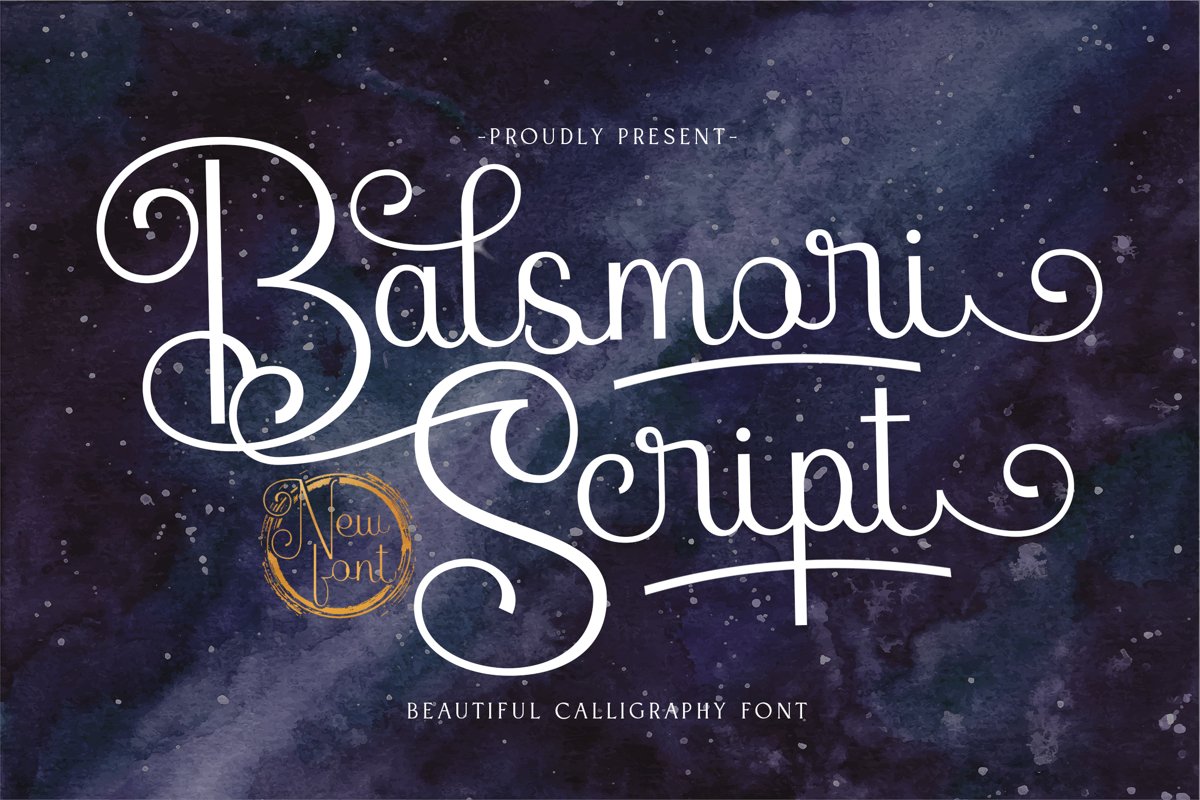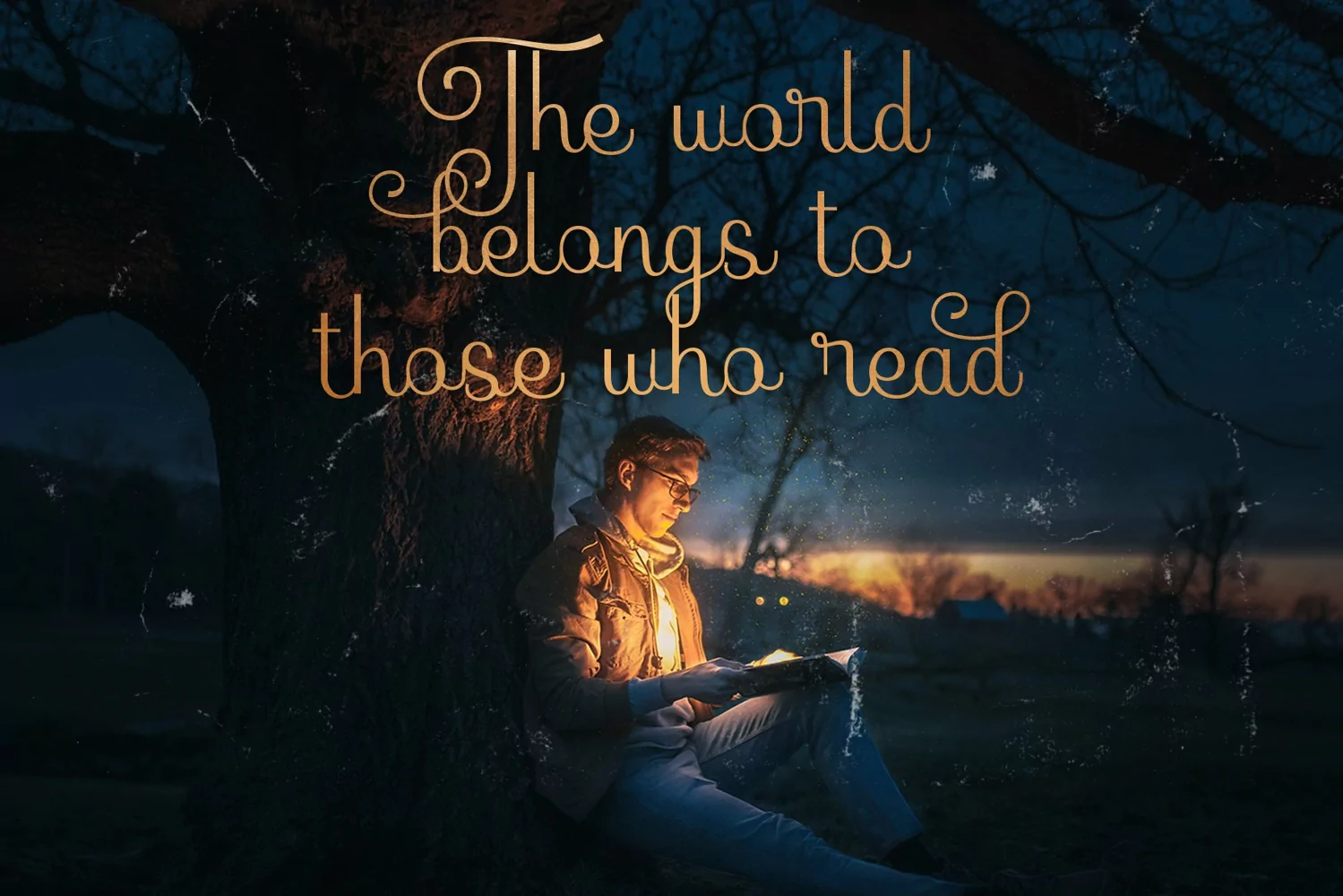
Balsmori is a beautiful script typeface. Perfect for display, quotes, headline, mockup, wedding needs, crafting needs, logo, logotype, signature, business card, header, tittle, florist needs, and many more.